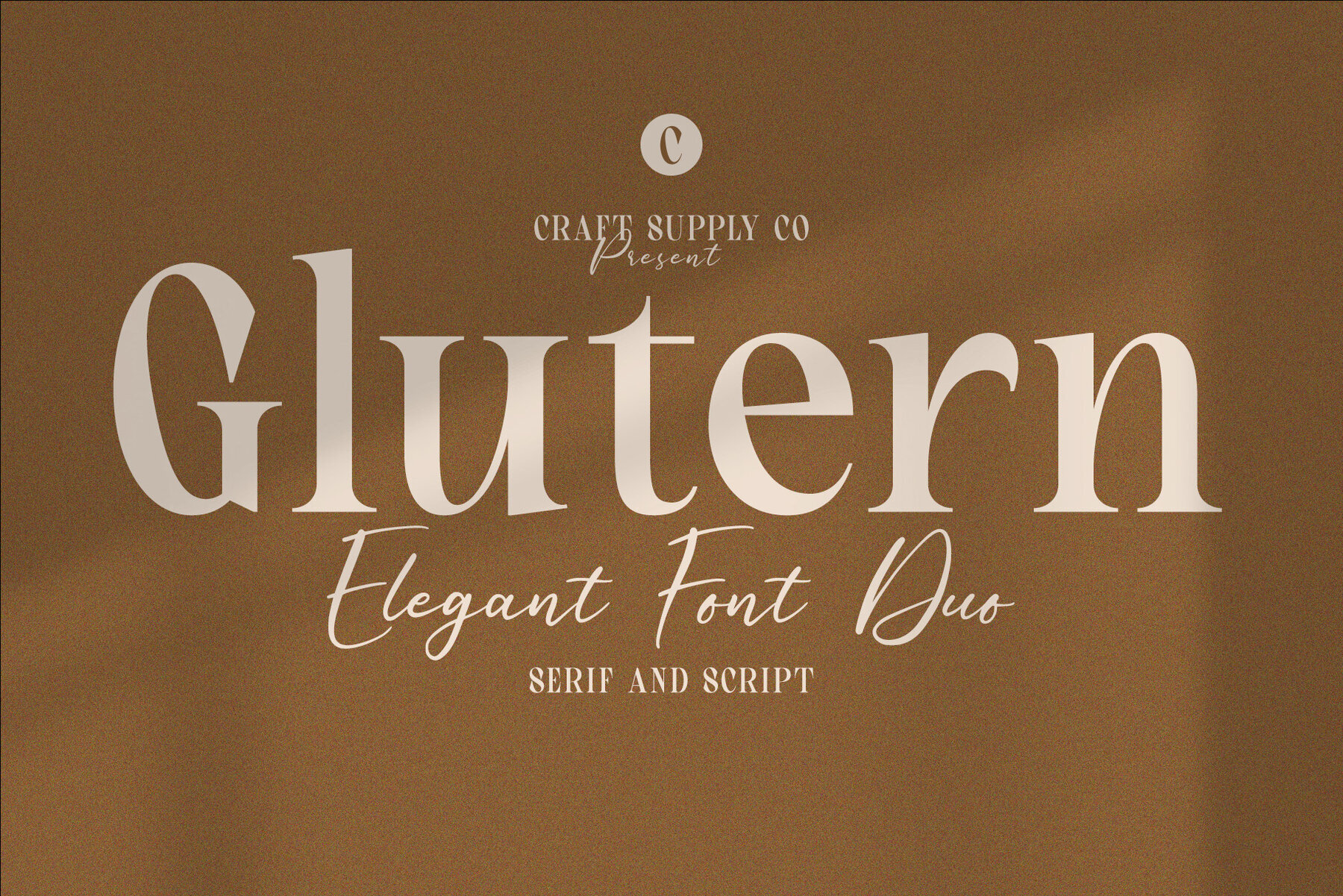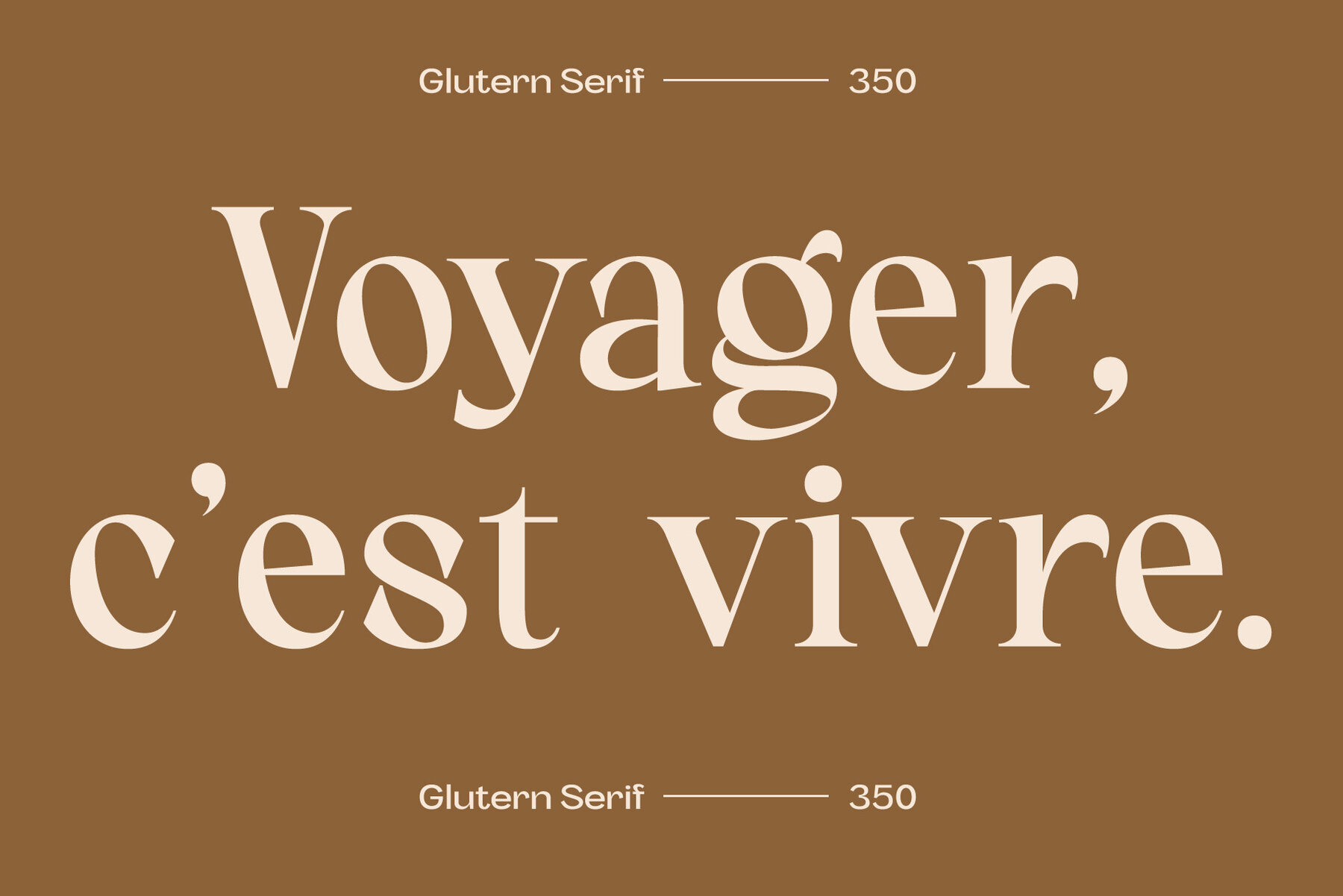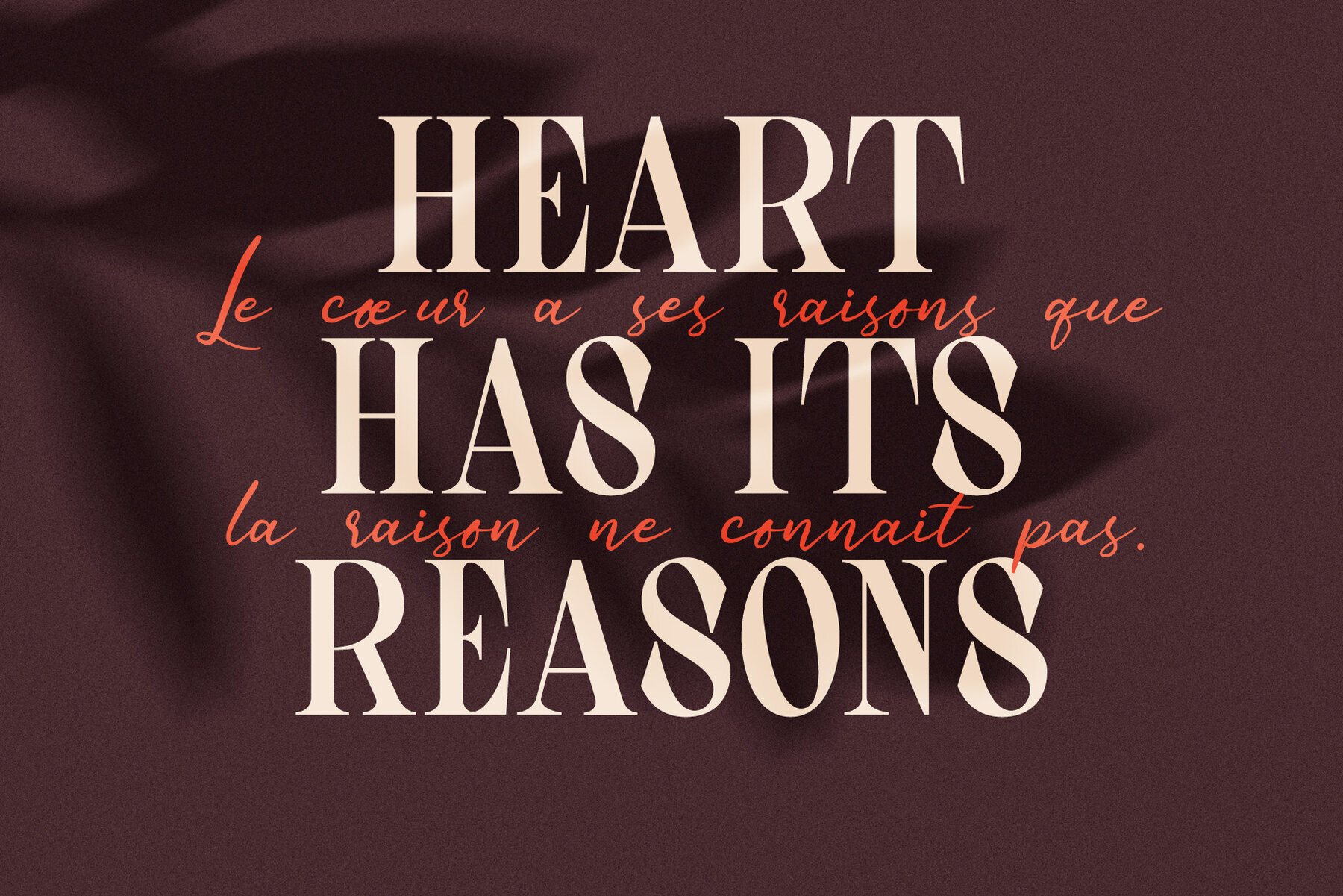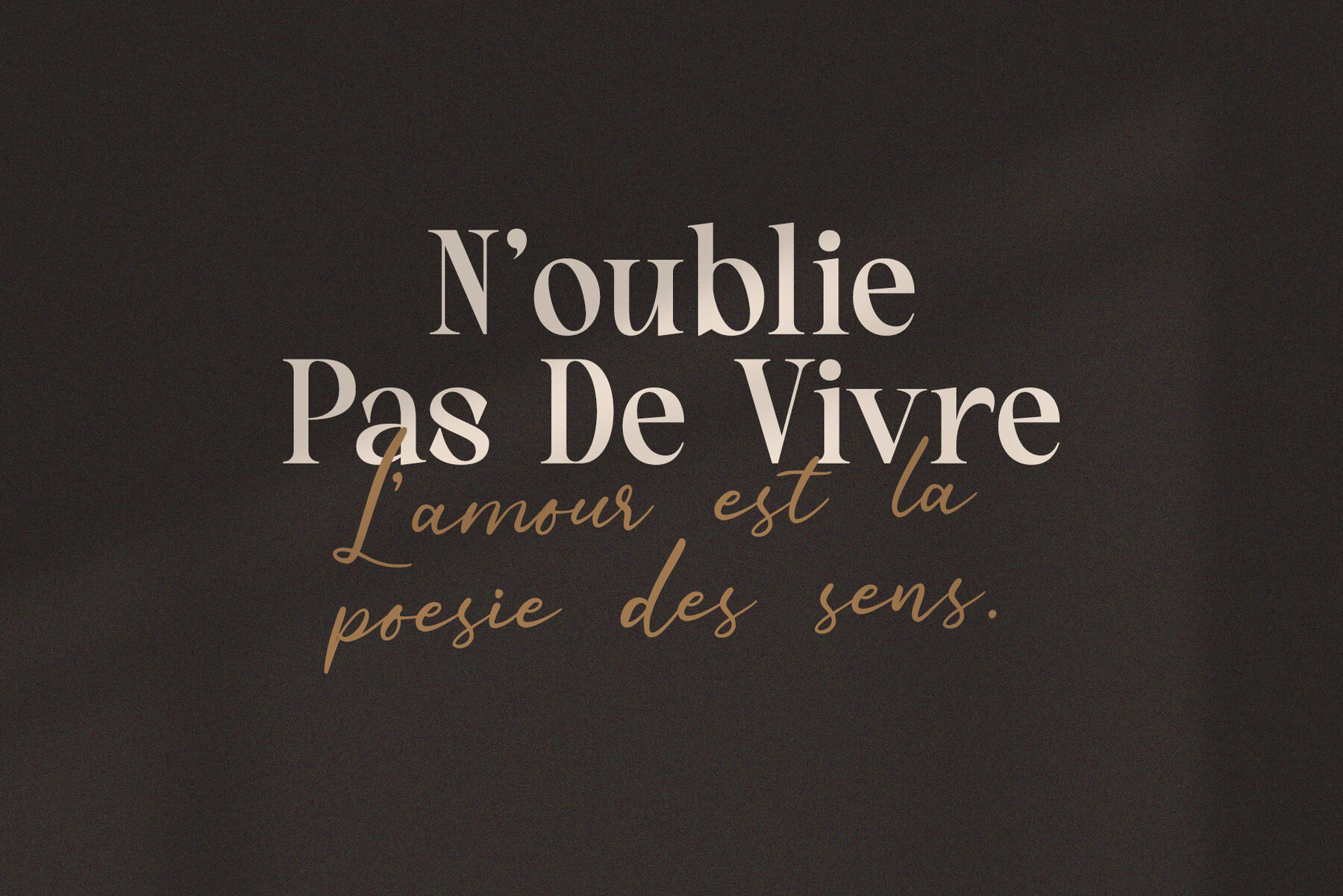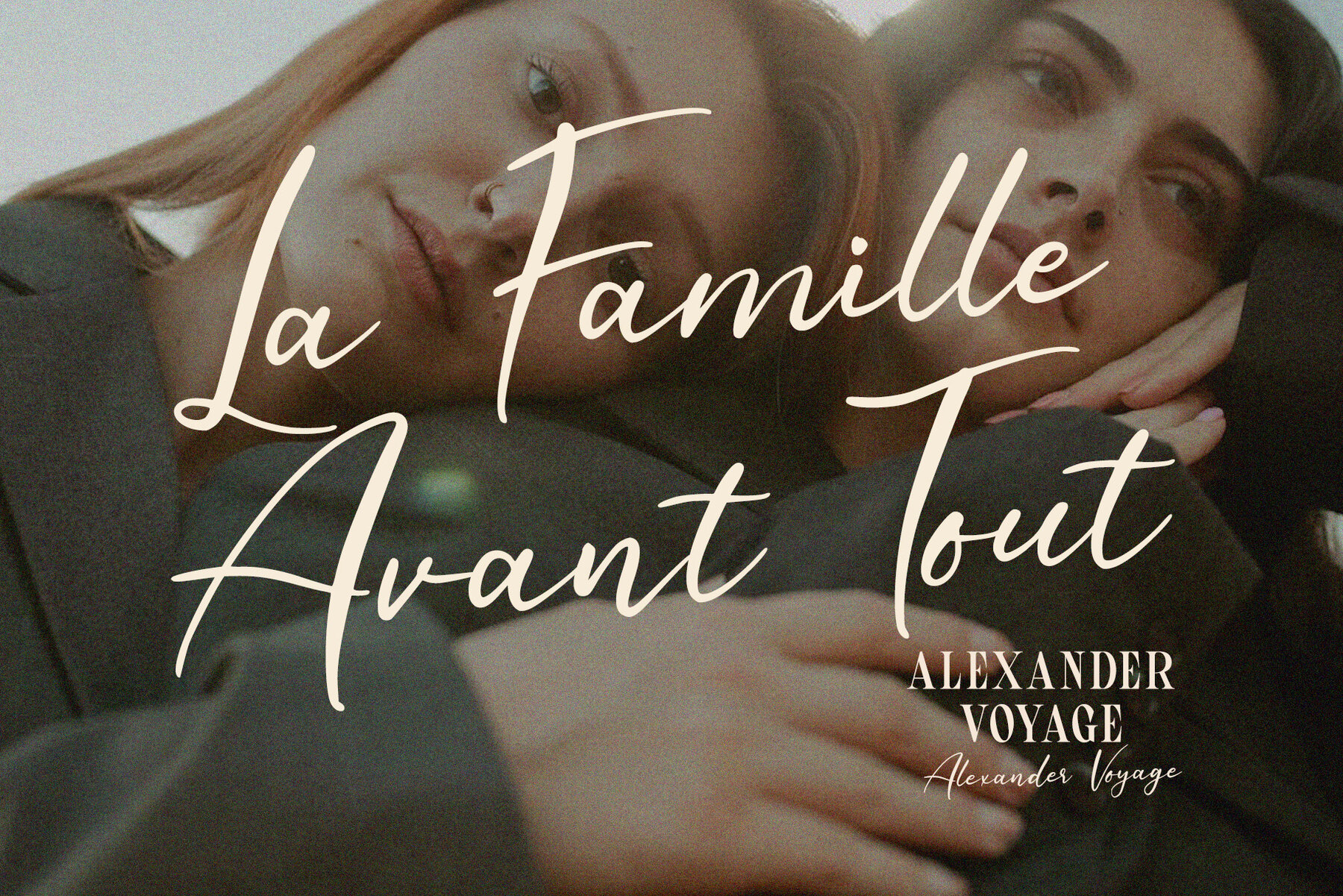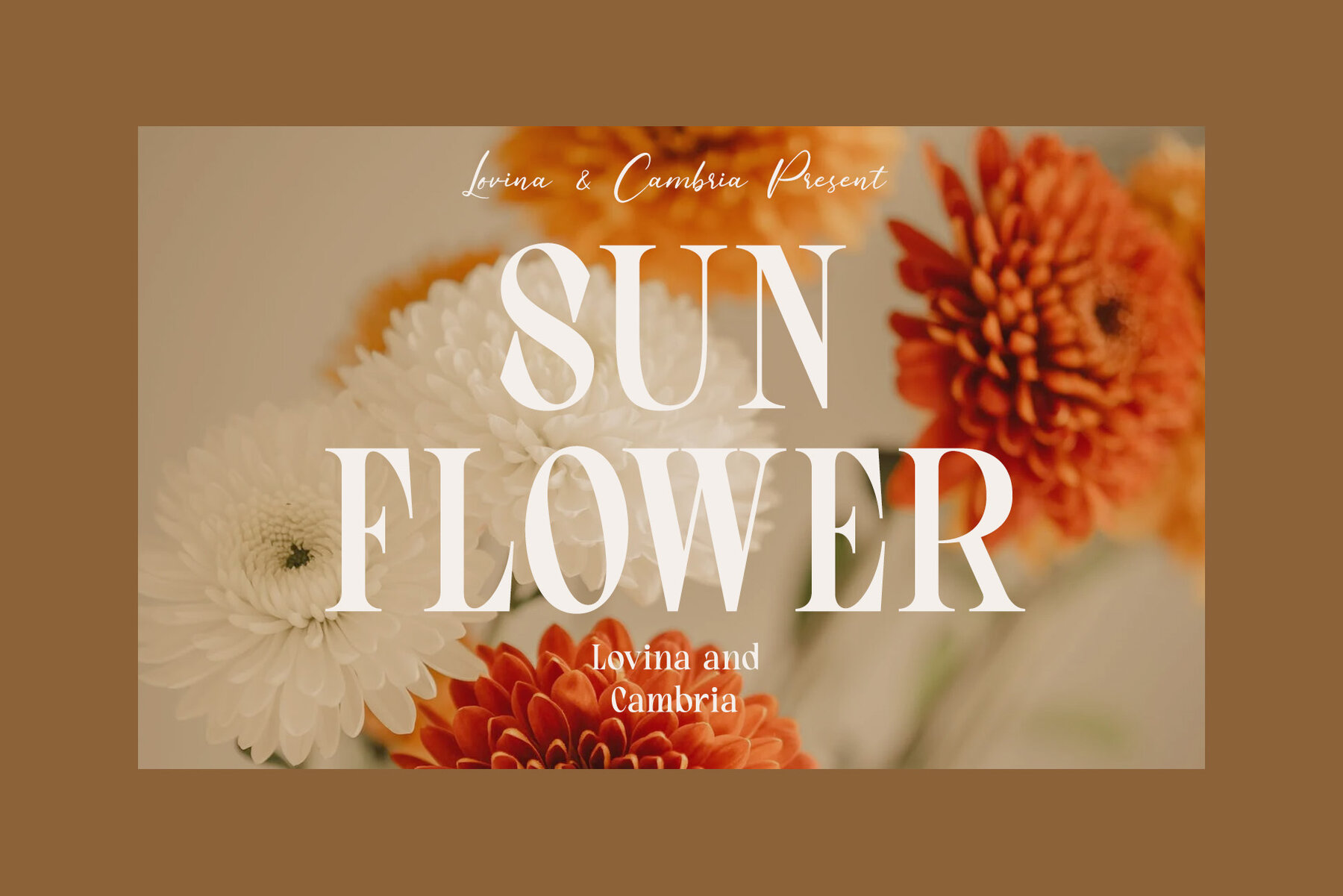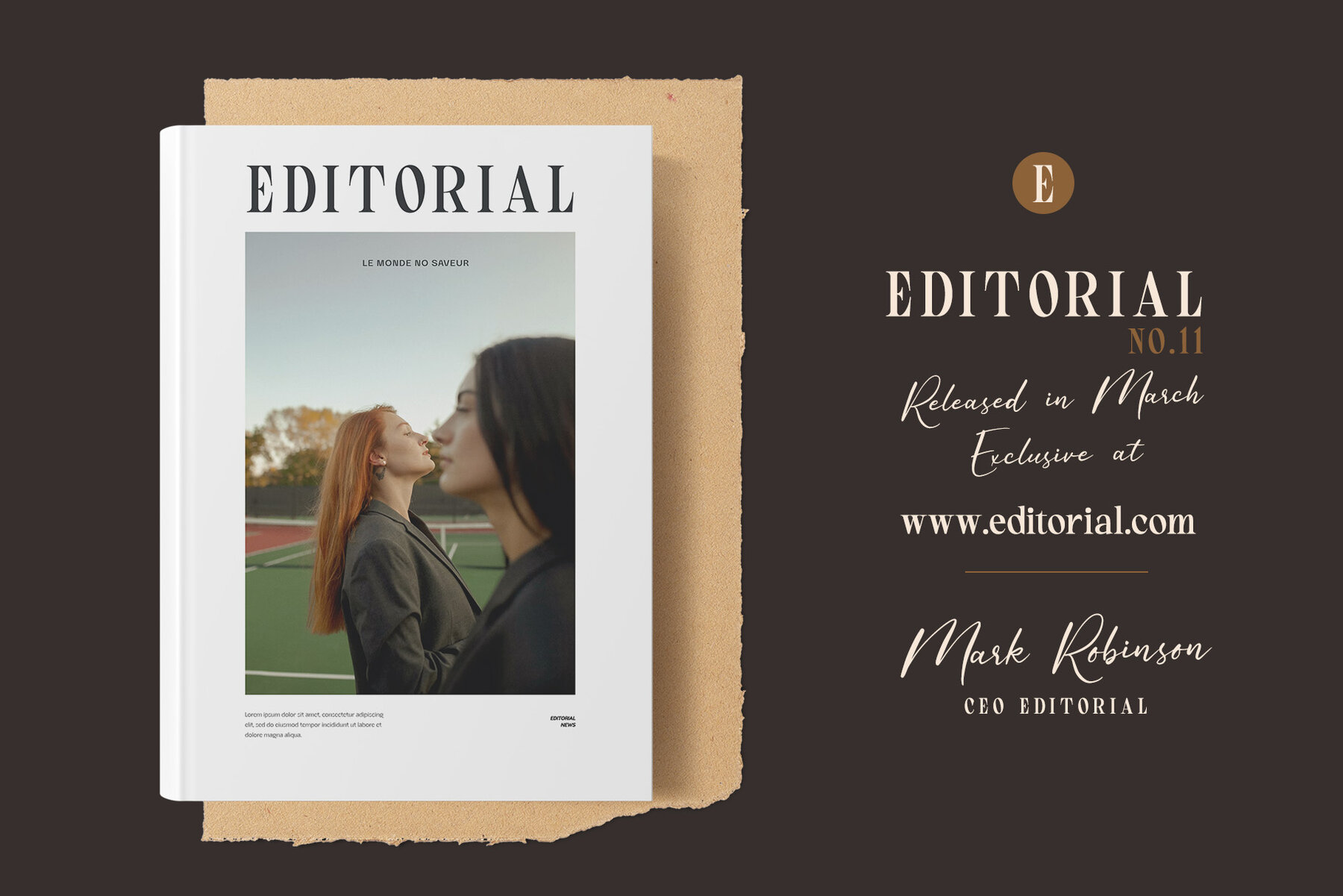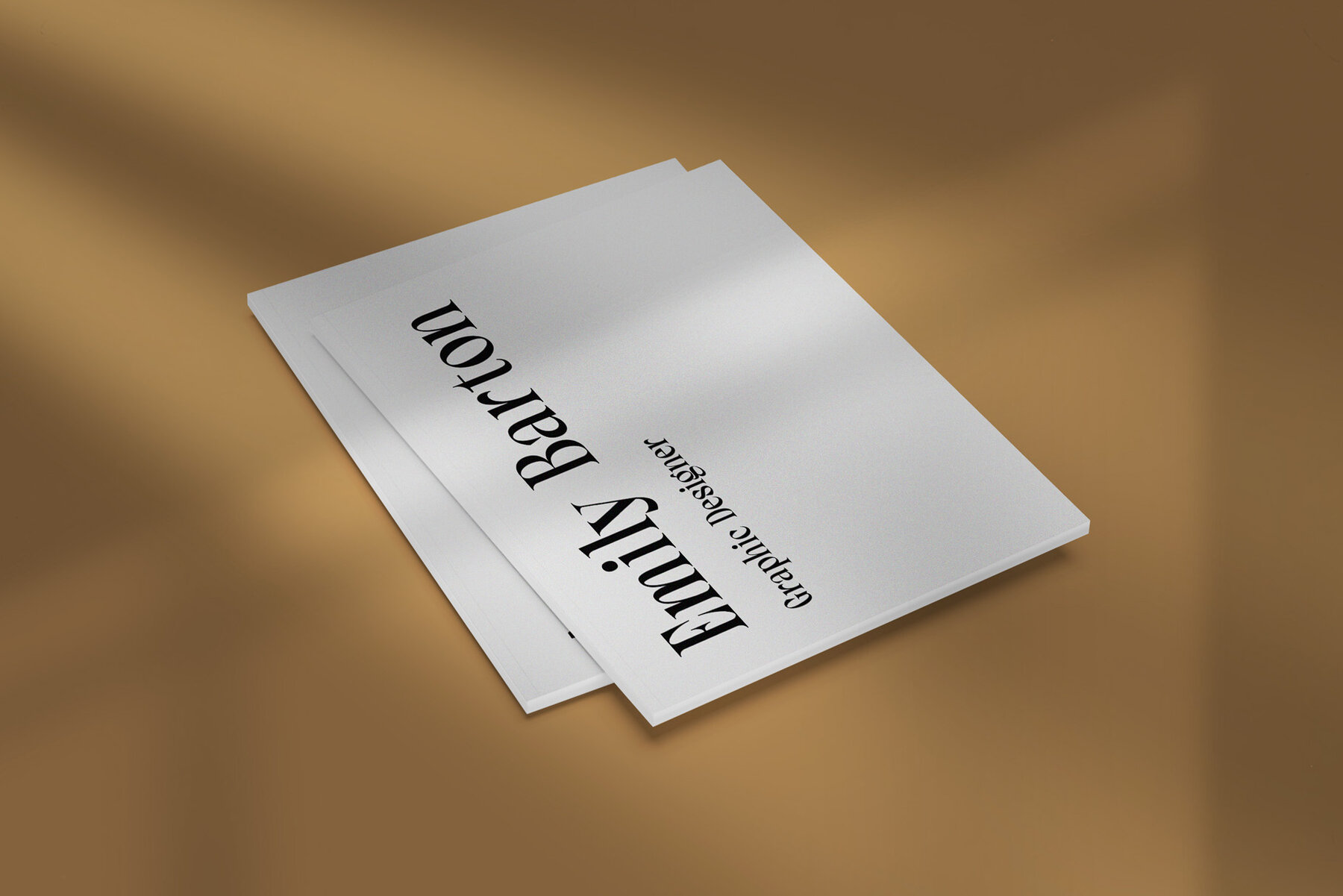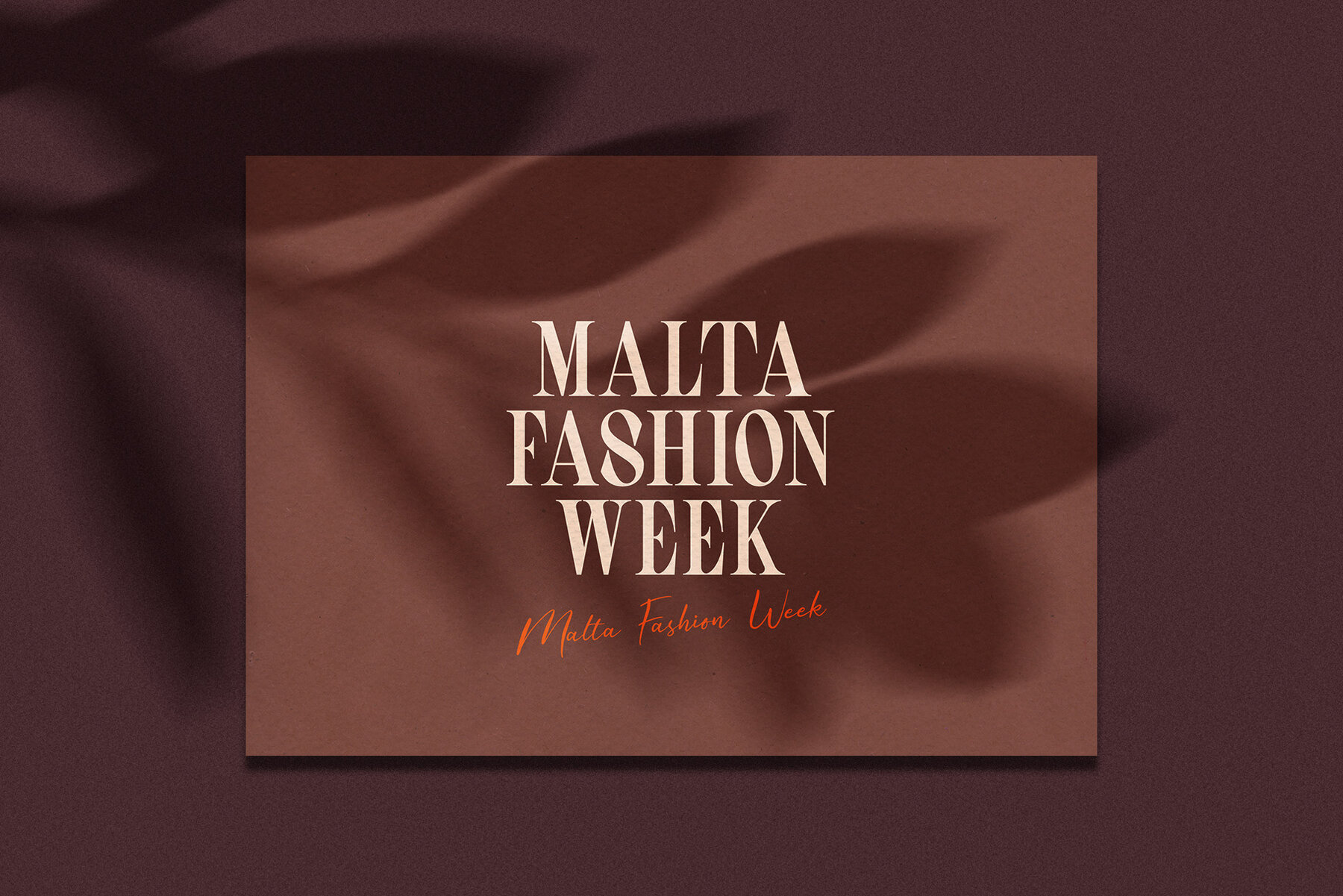
Glutern Font
Glutern Elegant Font Duo, a sophisticated and elegant font combination that combines a classic serif font with a stylish script font. Glutern Elegant Font Duo is perfect for those who want to add a touch of luxury and class to their designs.
The serif font is timeless and elegant, with clean lines and a classic look that is perfect for body text or headlines. The script font is bold and flowing, with a modern feel that adds a touch of personality and flair to your designs. Together, these fonts create a harmonious combination that is both stylish and functional.
Glutern Elegant Font Duo is perfect for a variety of design projects, including branding, wedding invitations, business cards, and more. Whether you're looking to create a luxurious and sophisticated brand or want to add a touch of elegance to your personal projects, Glutern Font Duo is the perfect choice.
With its easy-to-use OpenType features, you can customize your designs to fit your specific needs. The font also includes multilingual support, allowing you to use it in a variety of languages.
Glutern Serif Regular
Glutern Script Regular